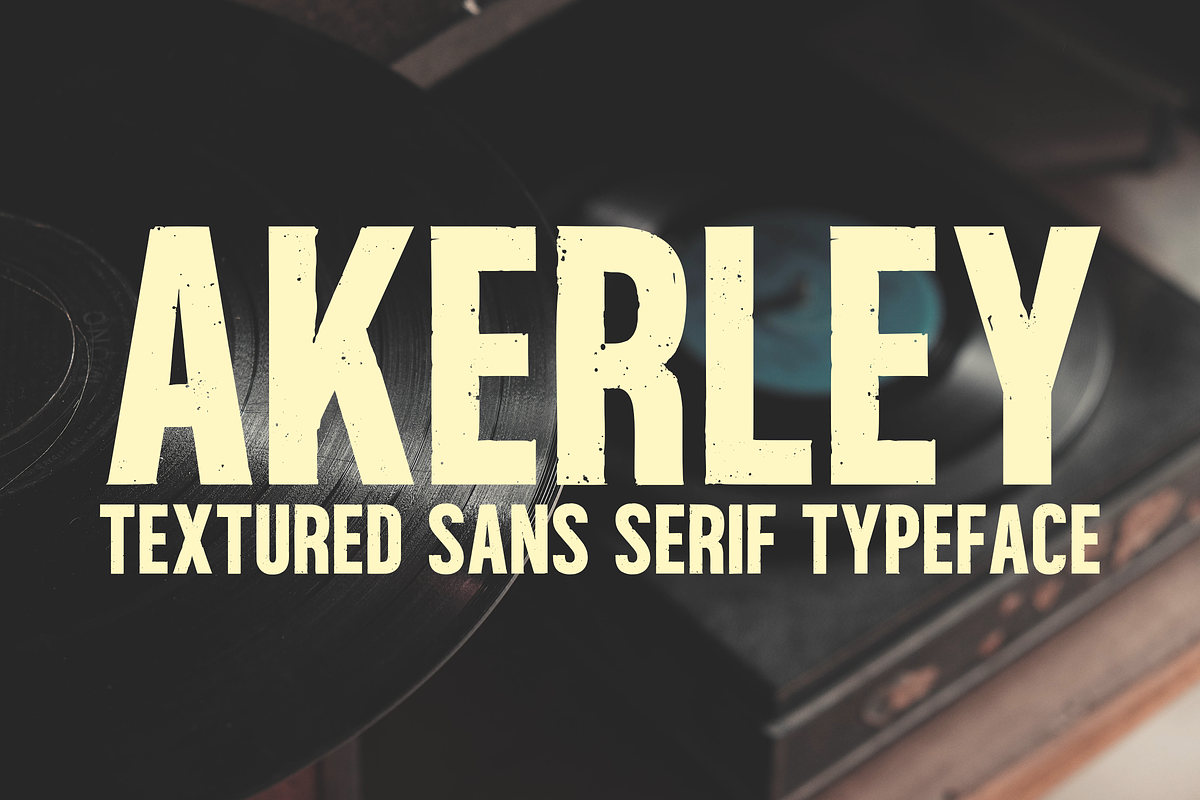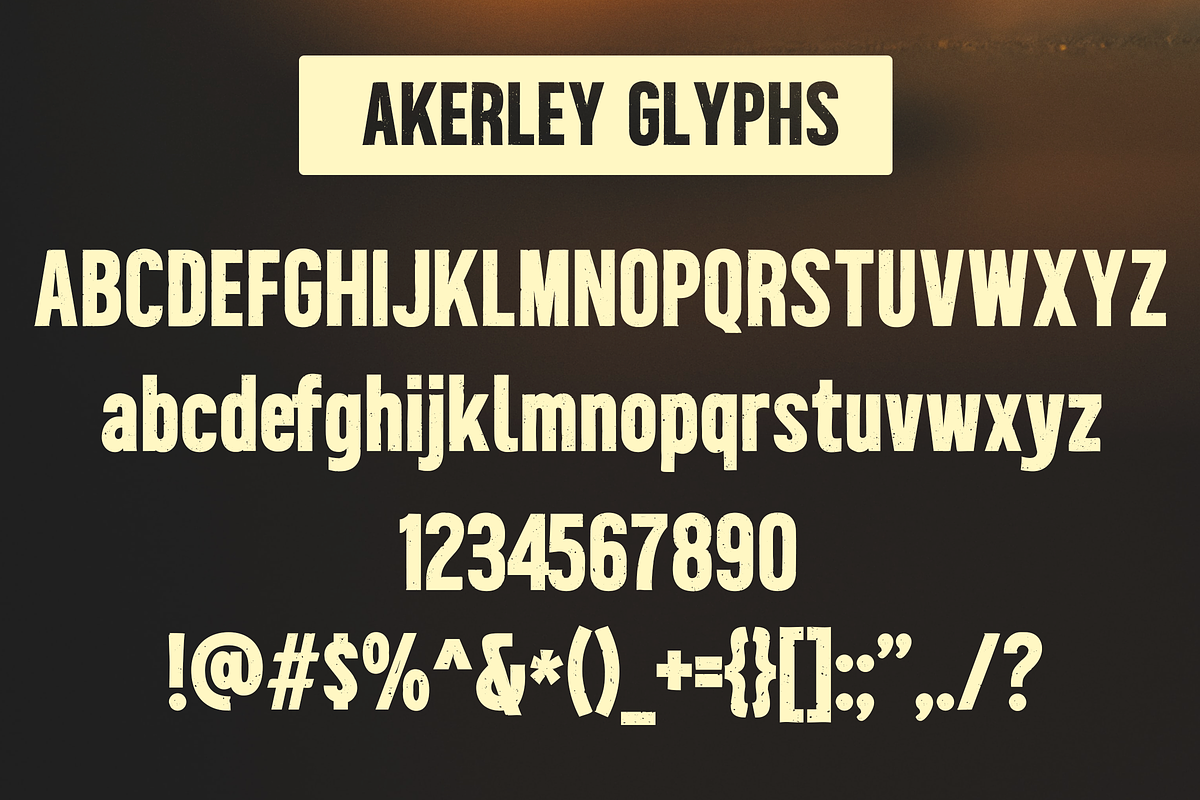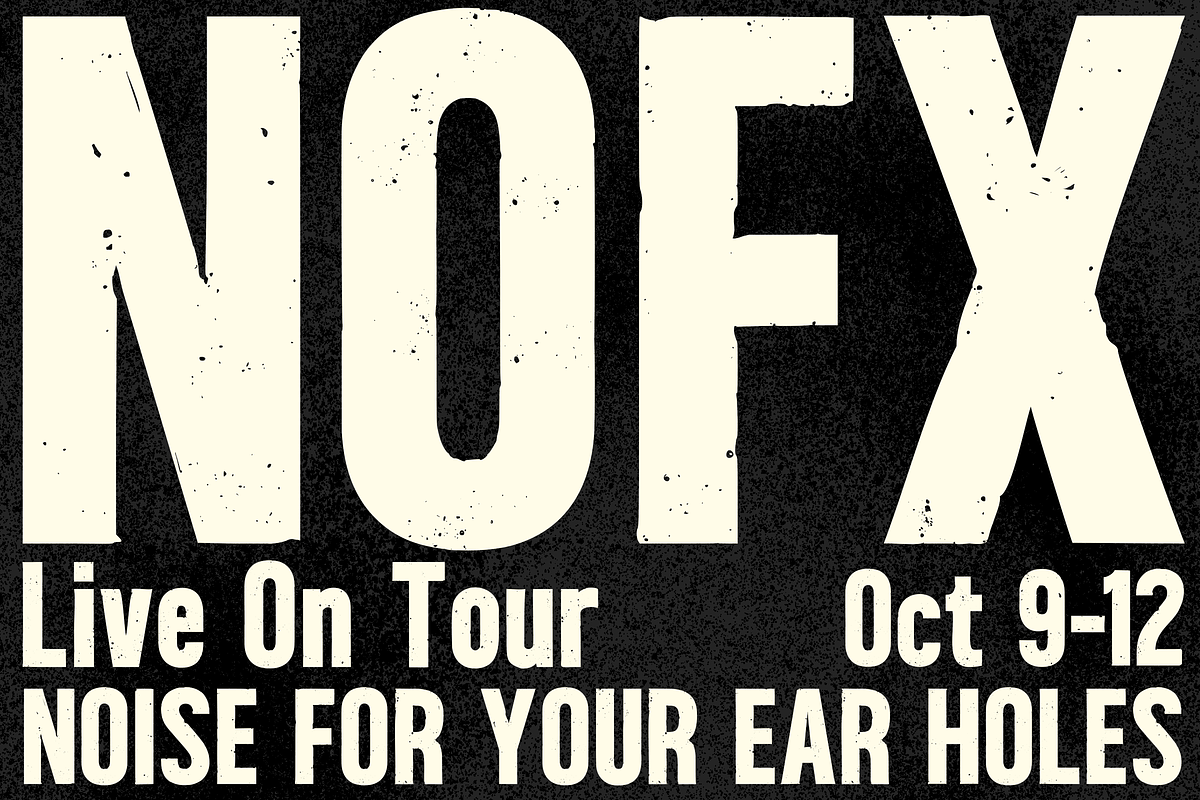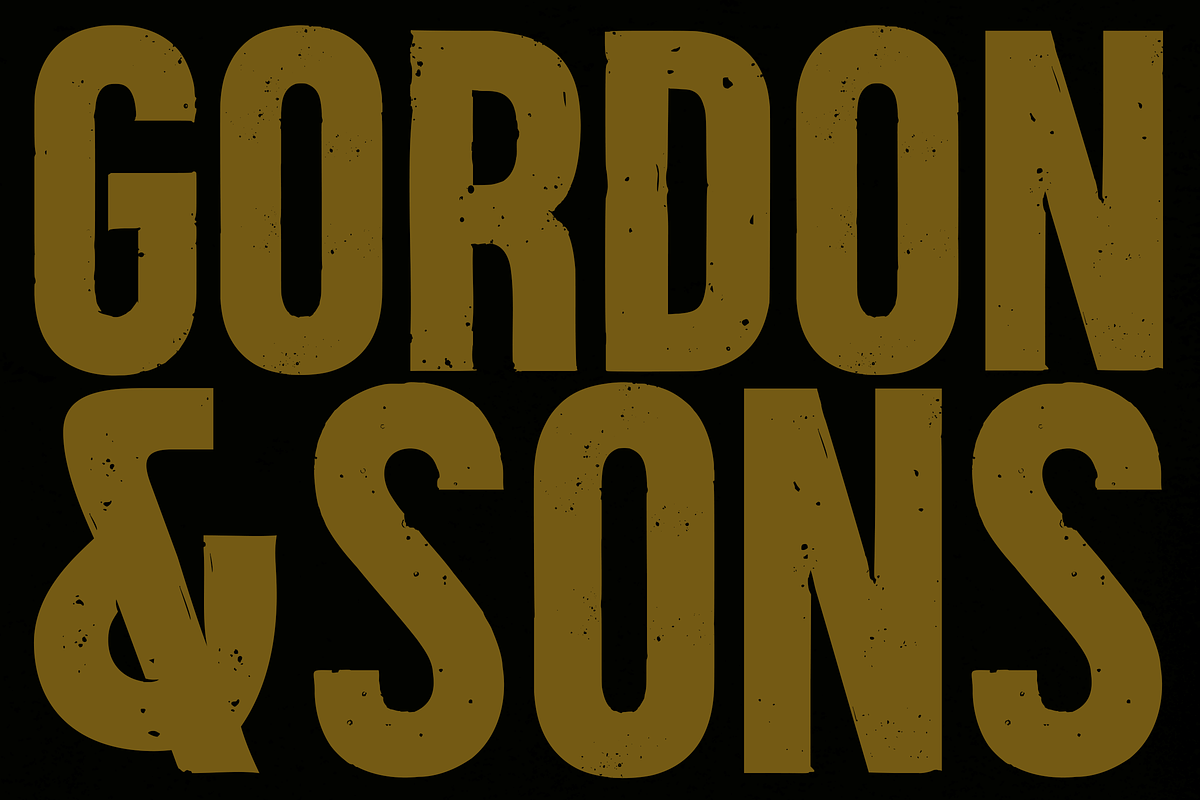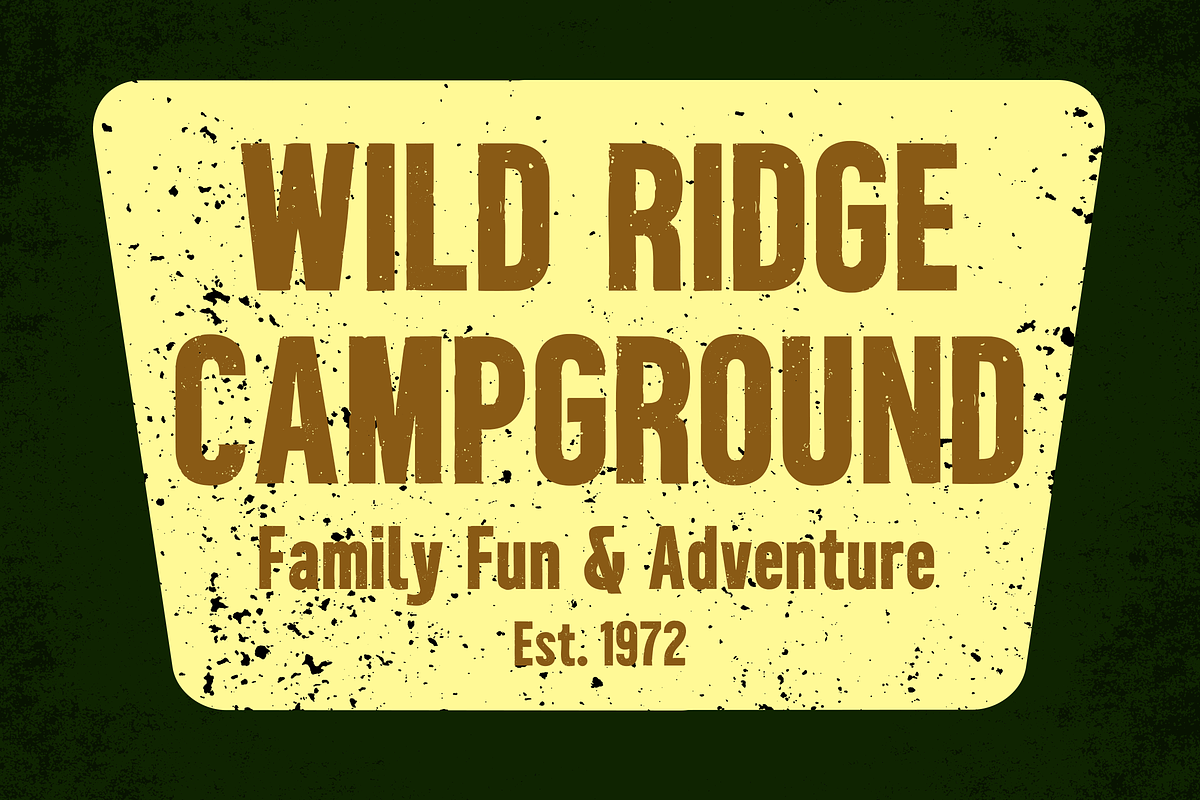
Akerley - Textured Sans Serif Font
Introducing Akerley, a vintage-inspired textured sans serif font that's perfect for apparel, branding, titles, and headlines.
This striking font combines a gritty, handcrafted texture with excellent legibility, making it a versatile choice for your creative projects. Akerley offers a full character set with multilingual support. Elevate your work with the bold and captivating charm of Akerley today!